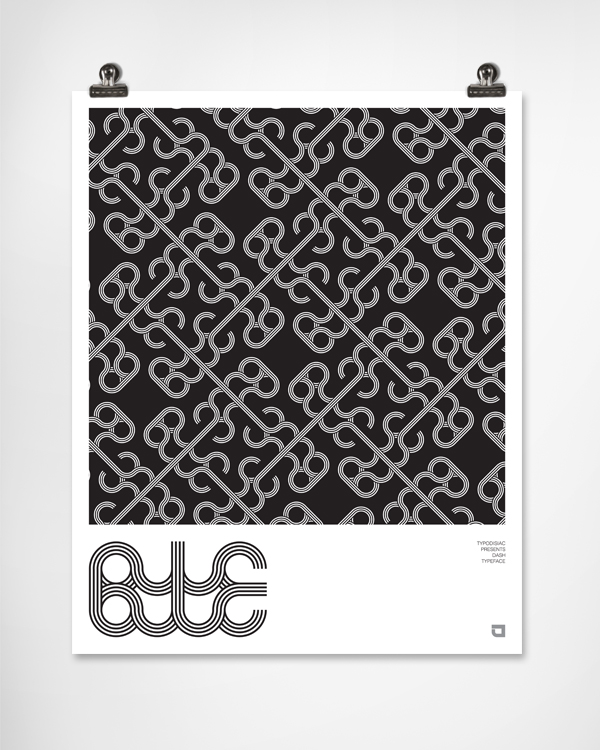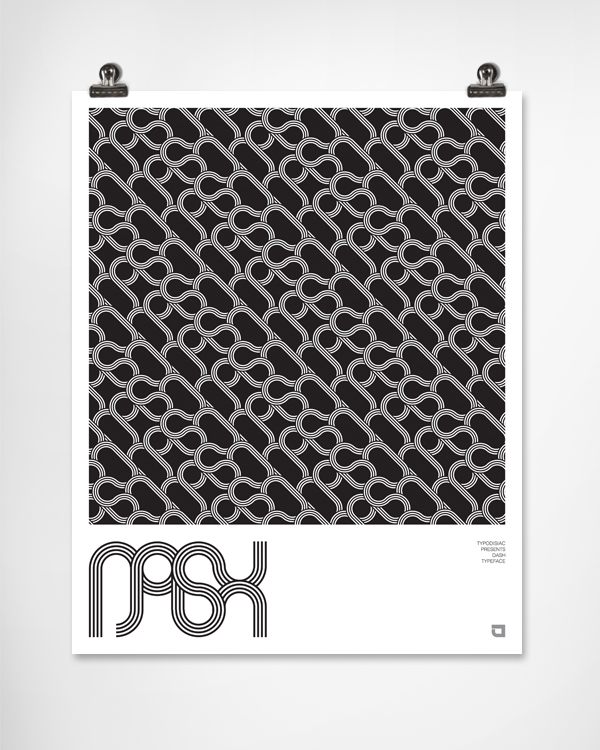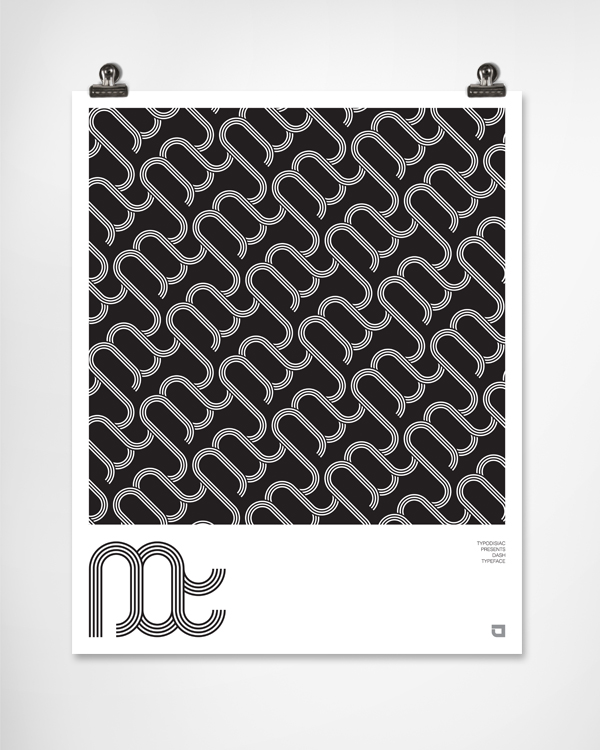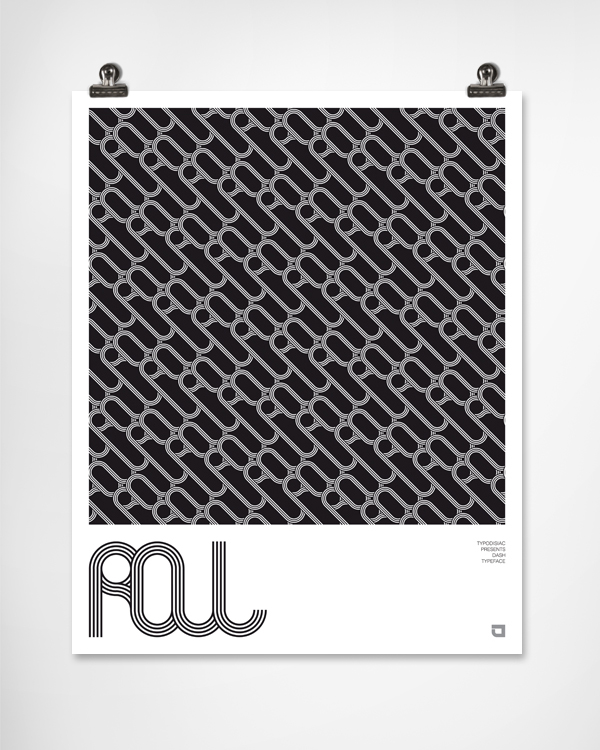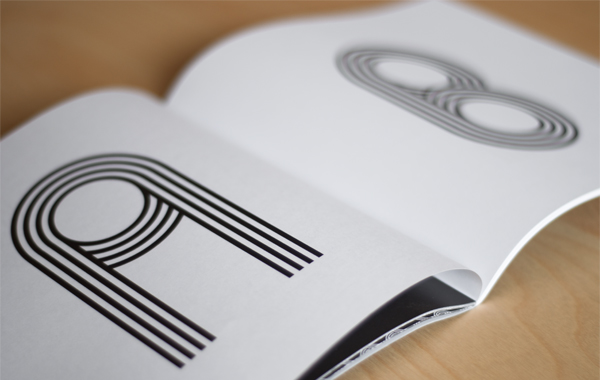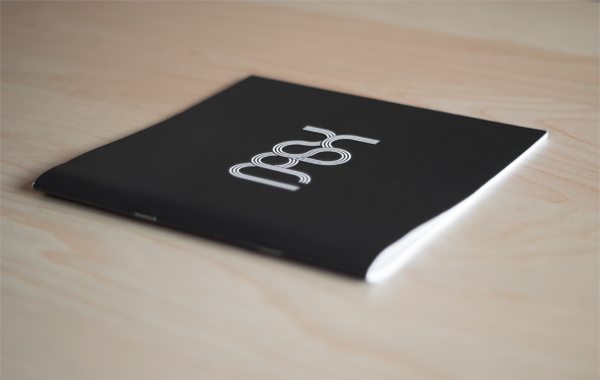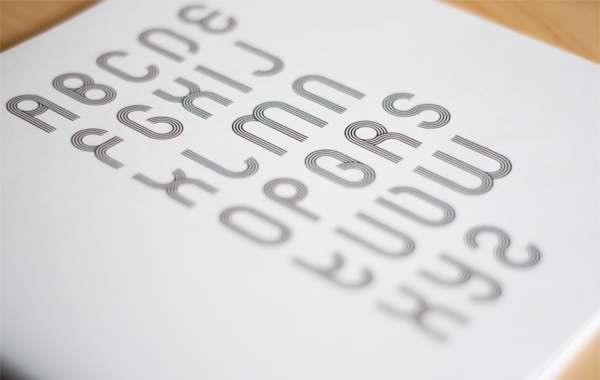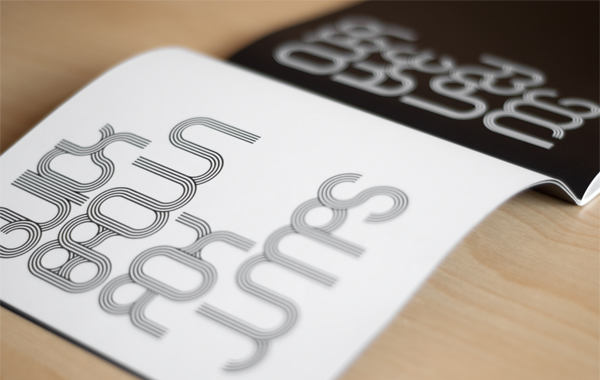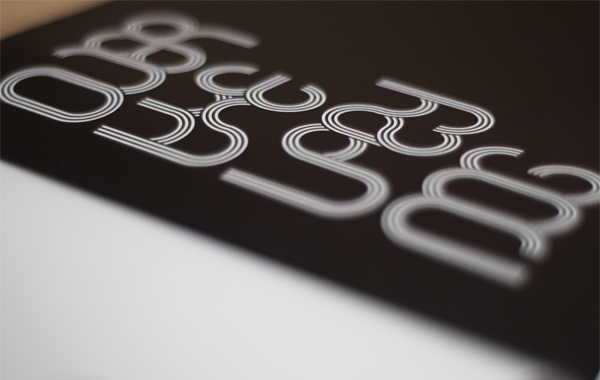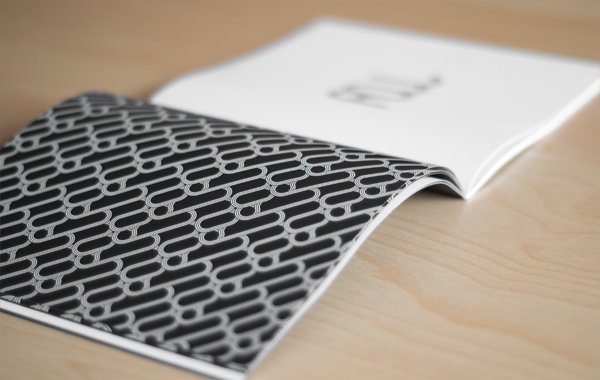
Dash Typeface
A display typeface built up only by capital letters. The model is basicly 2 circles on top of each other and their modifications to create the letters. Strokes of the letters can be connected with other letters' ones to type a word.